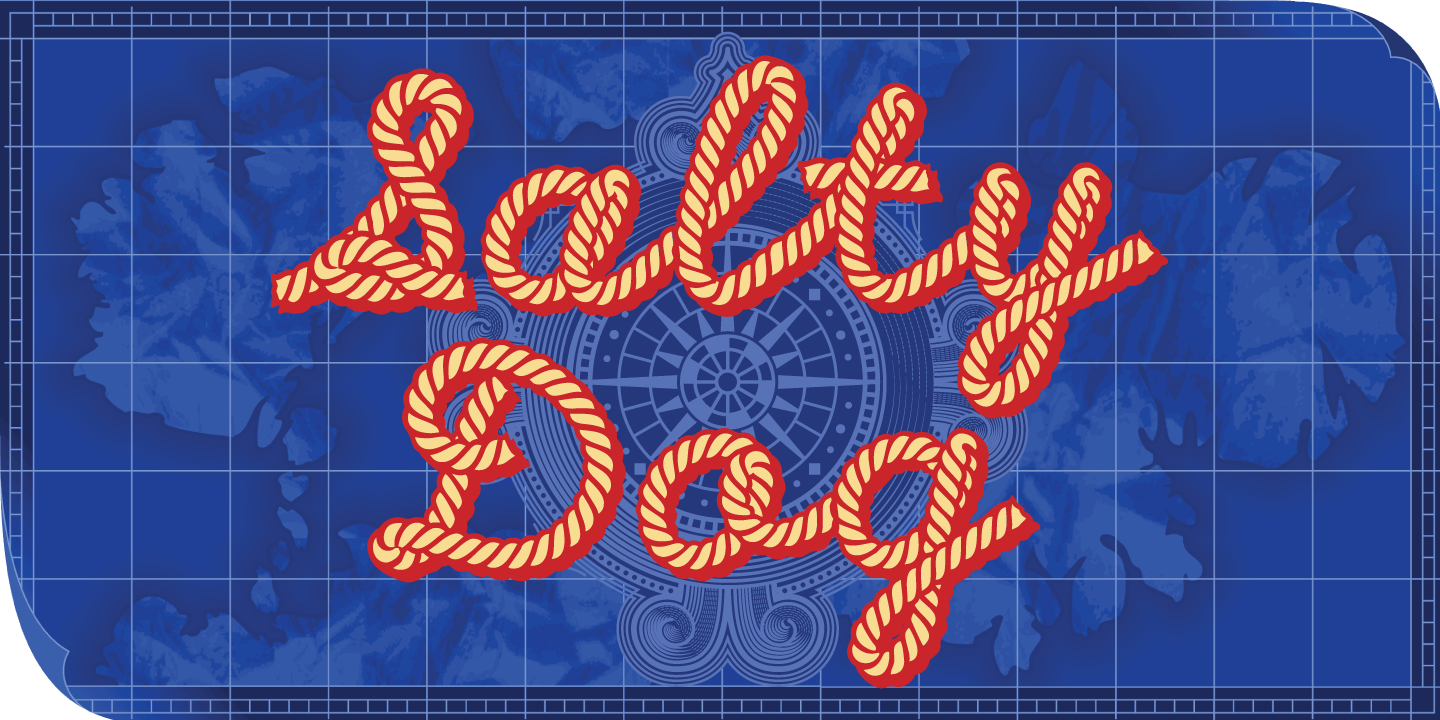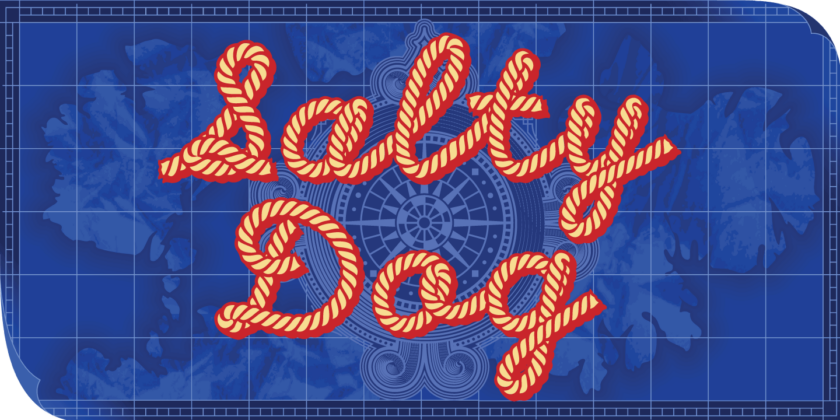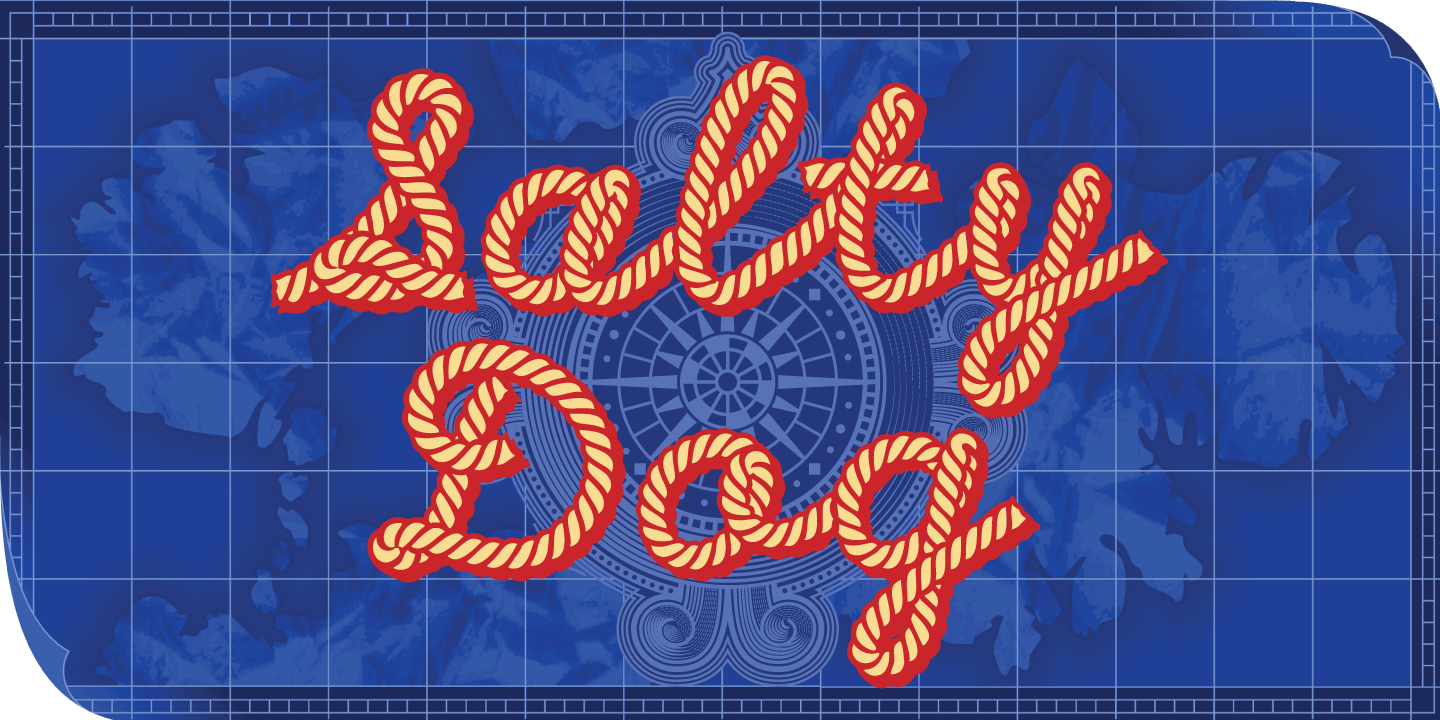
Salty Dog
About Salty Dog
Salty Dog\’s a rough-hewn but sturdy rope script in two styles; a ready-made outline version and a solid that suits it for a variety of multicolor highlight and shadow effects. Rich with the hearty spirit of the wide open sea, landlubbers\’ll also find…